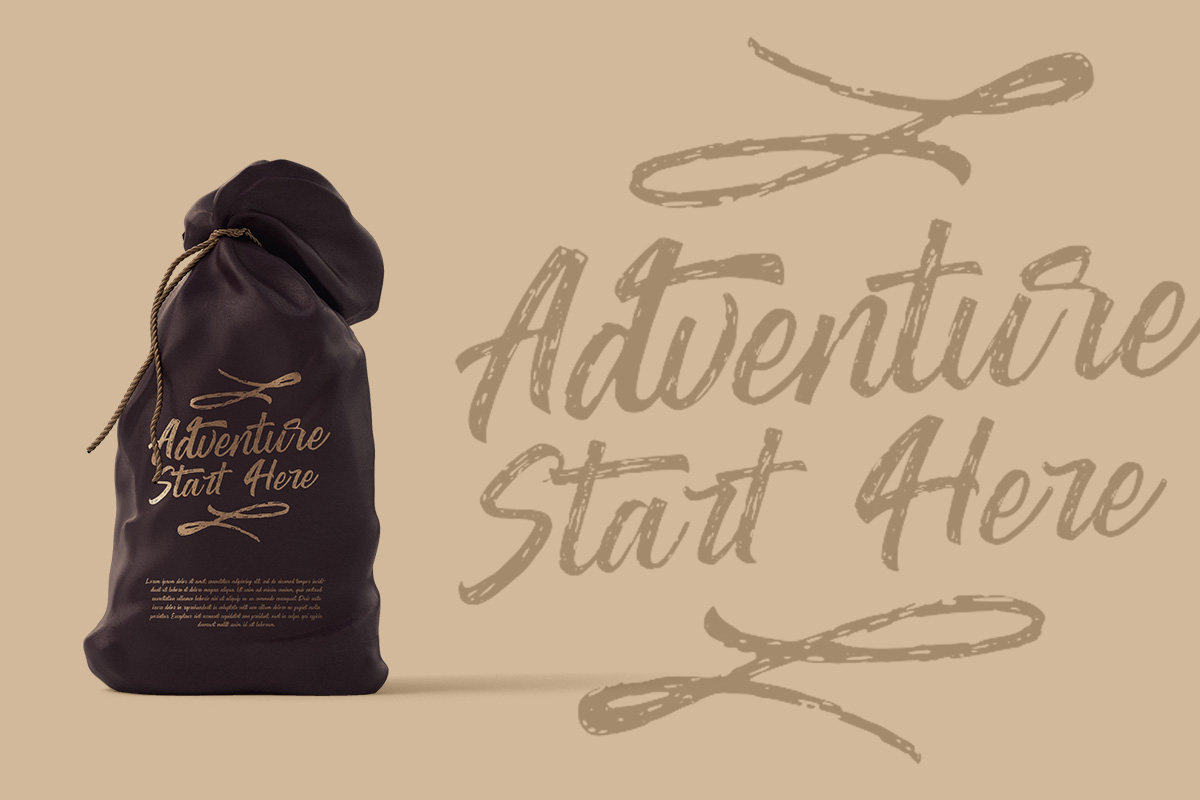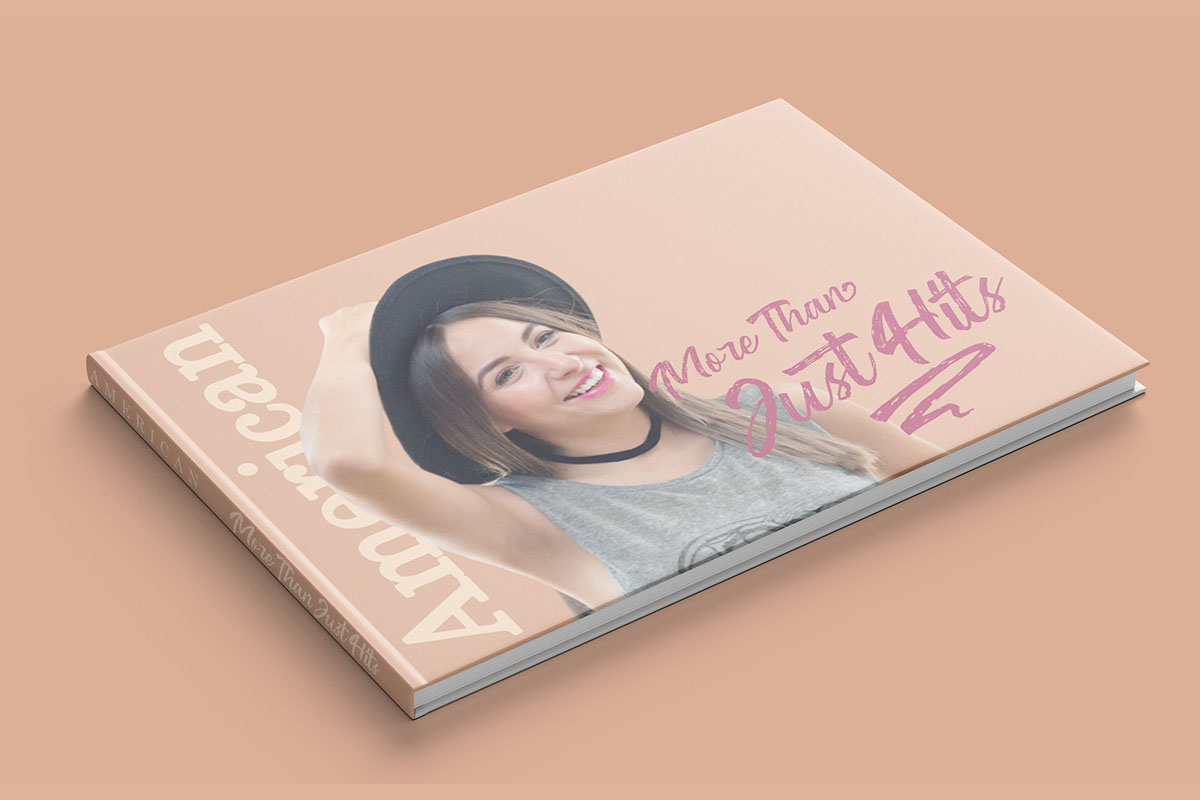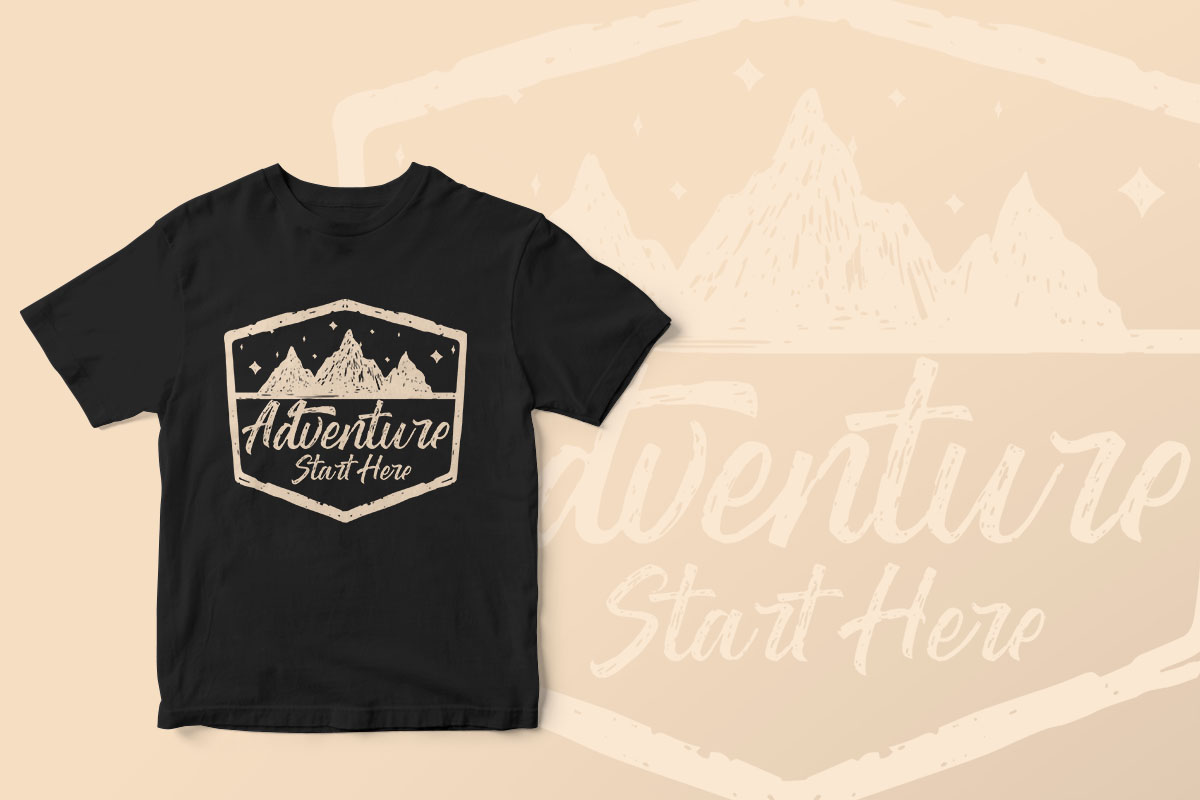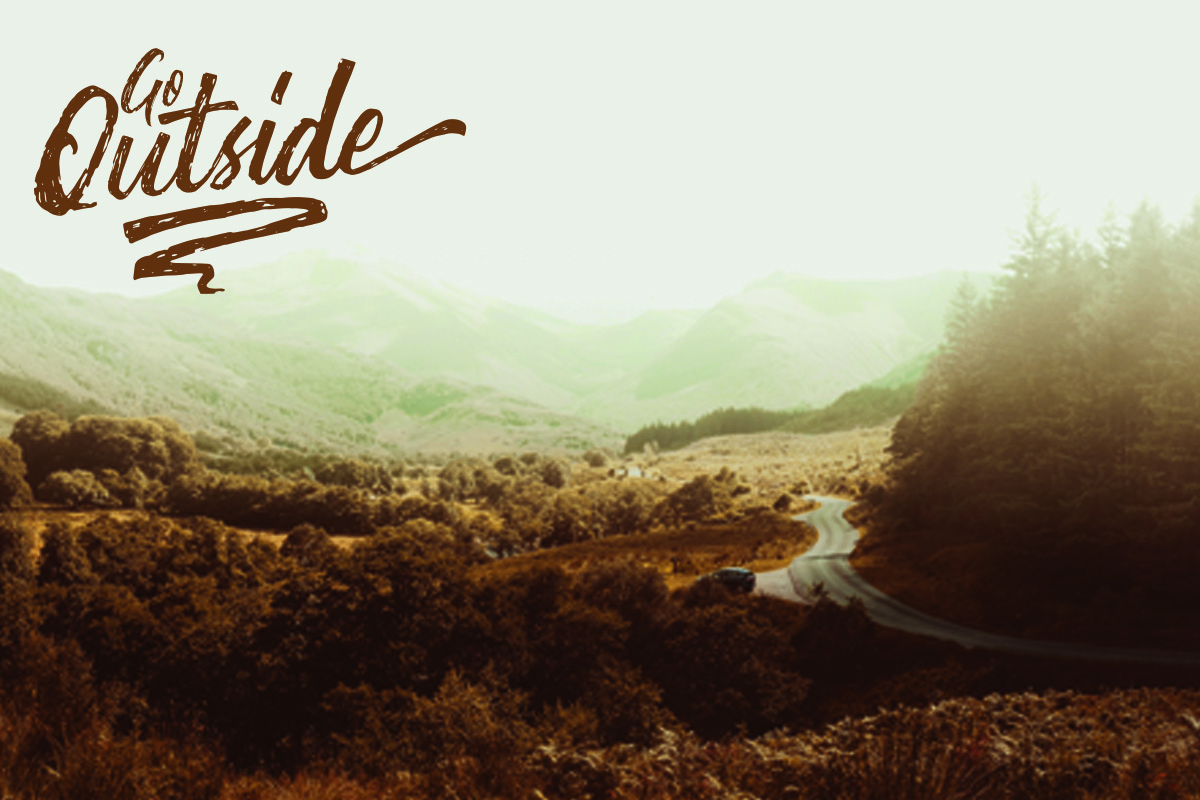
Washington Free Font
Washington Free Font is handmade lettering with vector editing. Washington Free Font is suitable for various design projects like Card, T-Shirt, Apparel, Stationery, Book Template, and many more. Washington Rough has +300 Glyphs which is stylistic Glyphs. This free typeface was designed by a talented Youthlabs Studio. If you like it don’t forget to check out the full version.